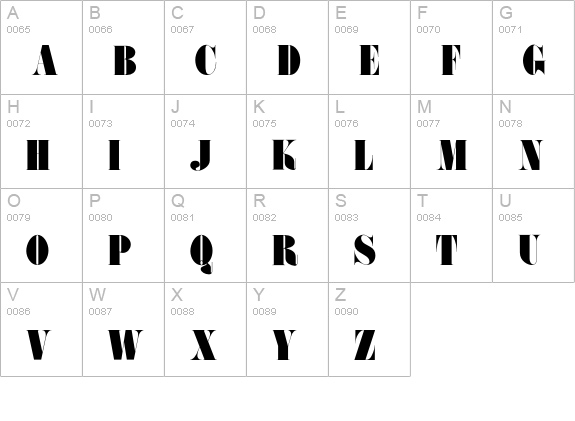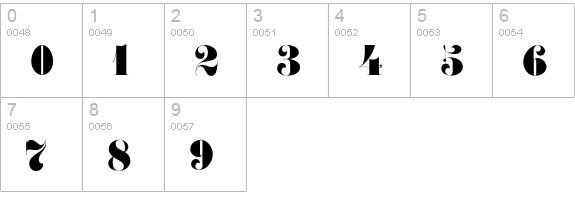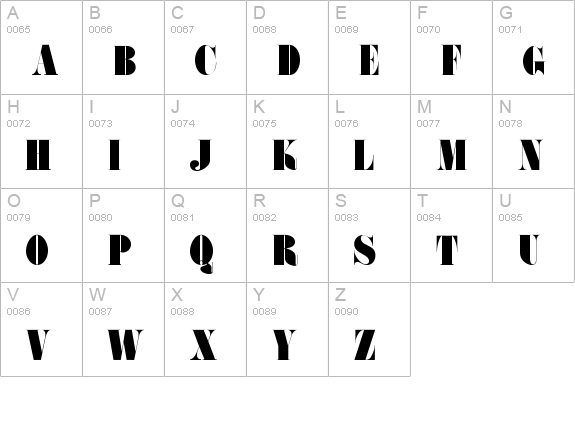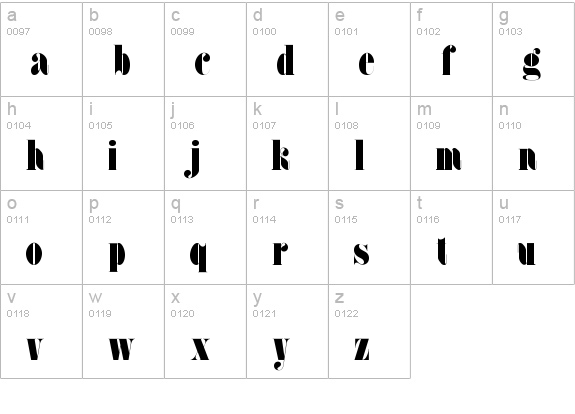
FatFace Font Details
FatFace font is a bold and eye-catching typeface that exudes a sense of strength and confidence. With its thick, elongated serifs and commanding presence, FatFace demands attention and makes a statement in any design project. The font's unique blend of classic elegance and modern flair sets it apart, making it perfect for headlines, logos, and branding materials. And the best part? FatFace font is available for free download at FontsMarket.com. So you can easily add this striking typeface to your collection and use it in your projects without any restrictions. Don't miss out on the opportunity to enhance your designs with the bold and impactful style of FatFace font. Download it now and take your typography to the next level!